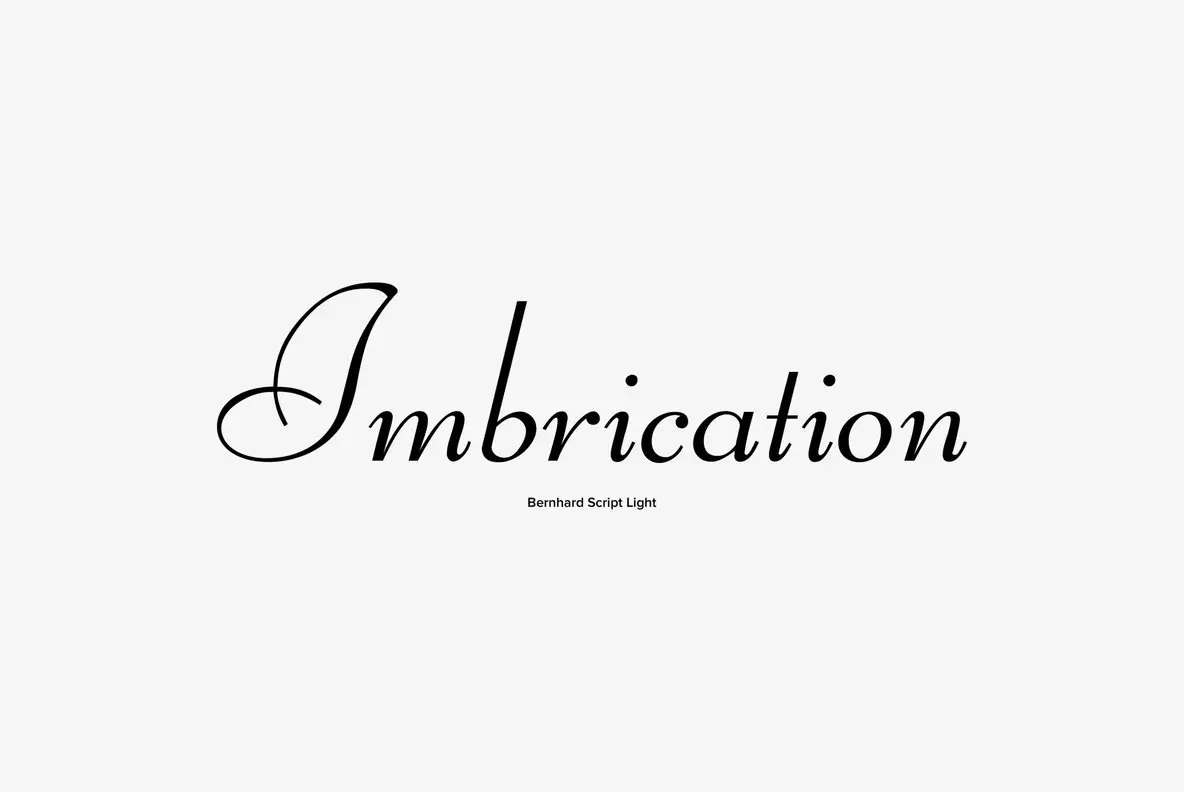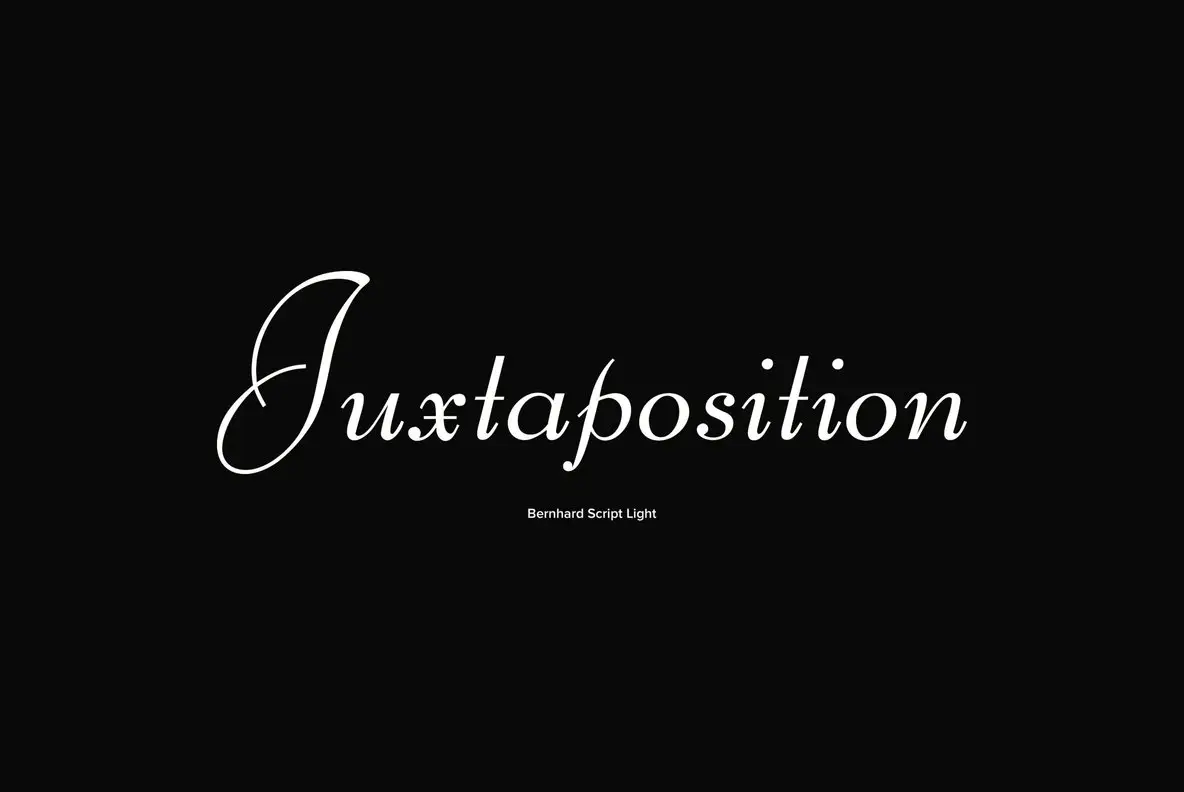
Bernhard Script Font Youworkforthem With its modest x height and pronounced descenders, bernhard script stands out in editorial layouts, invitations, and branding that call for a touch of european heritage. Bernhard script (schonschrift) was originally designed by german designer lucian bernhard in 1925 1928 for bauersche gießerei in frankfurt. it is a french influenced non connecting script with a small x height and resultingly large descenders.
Bernhard Script Font Youworkforthem Information about the font bernhard script from profonts, and where to download it. This elegant script font features flowing, cursive letterforms with a classic and sophisticated appearance. the characters are intricately designed with smooth curves and delicate strokes, giving it a refined and artistic look. Download for free bernhard script regular. check out examples of the bernhard script regular font at azfonts. With its modest x height and pronounced descenders, bernhard script stands out in editorial layouts, invitations, and branding that call for a touch of european heritage.